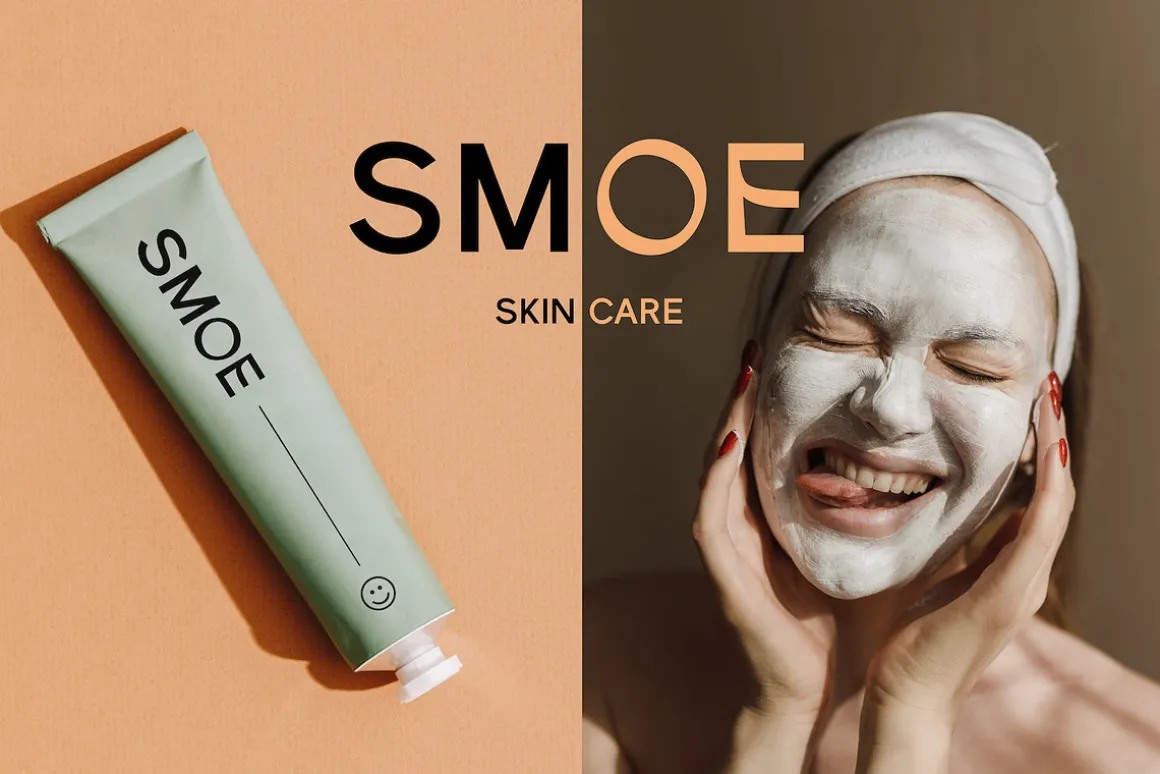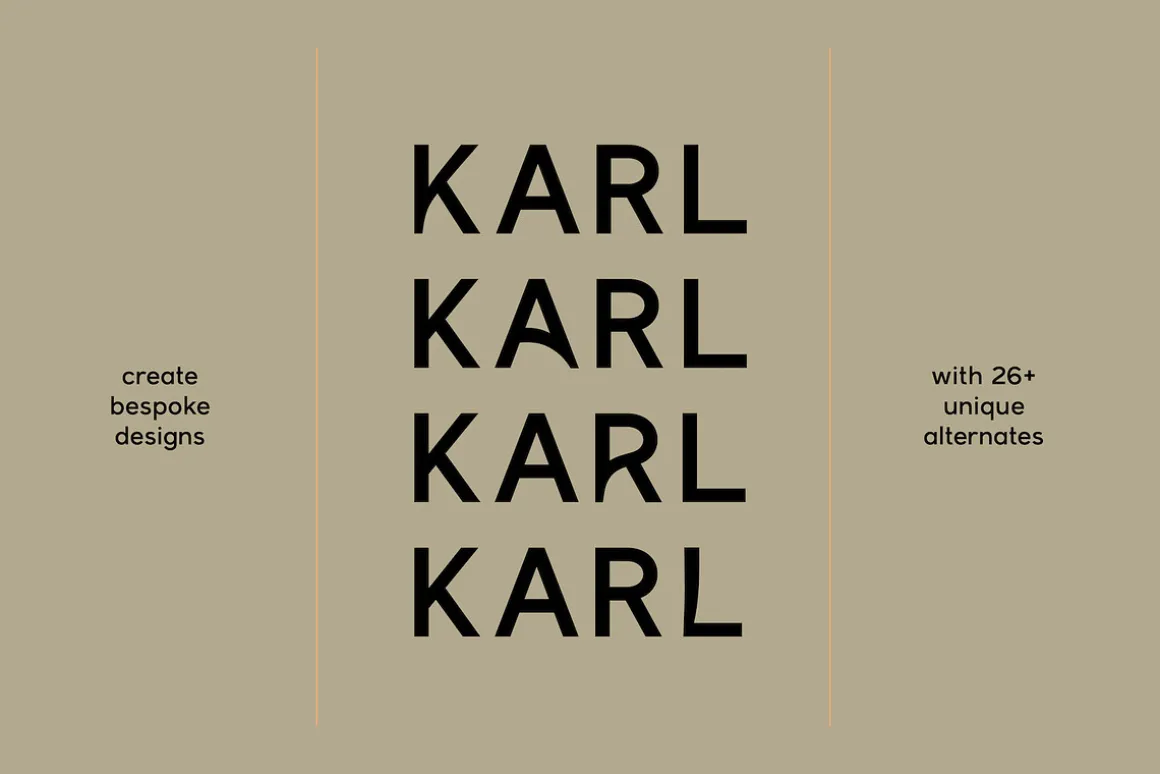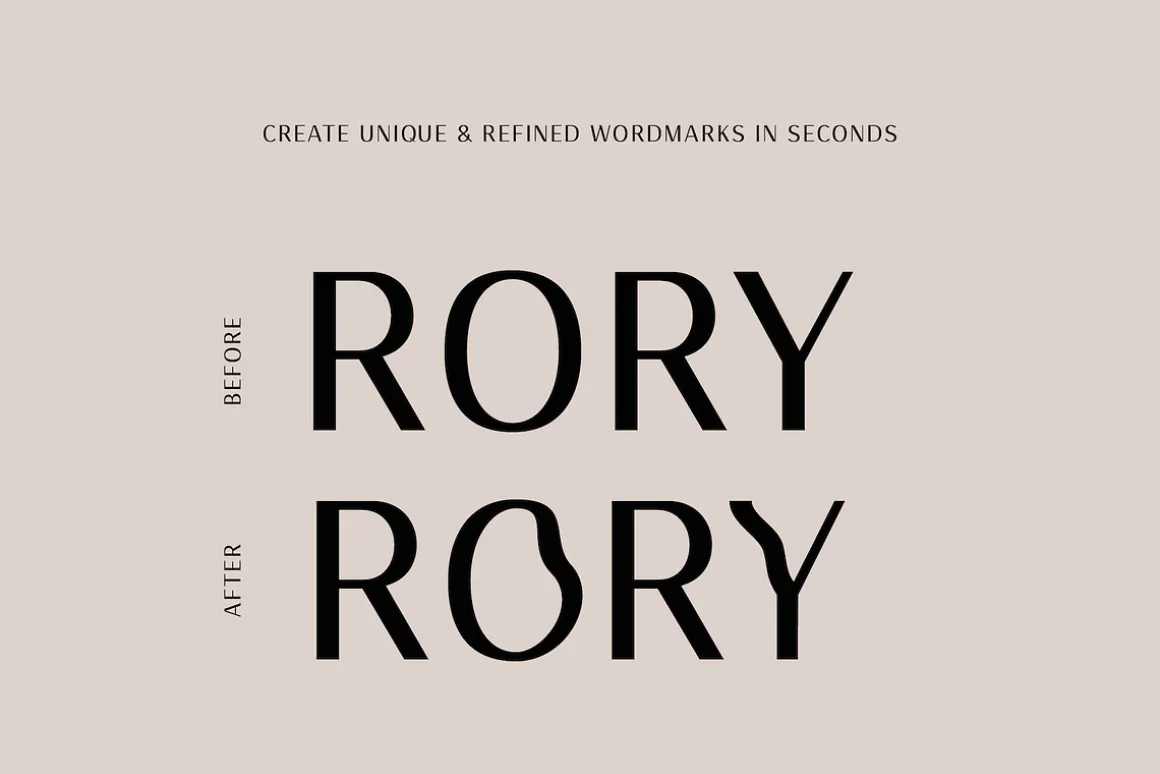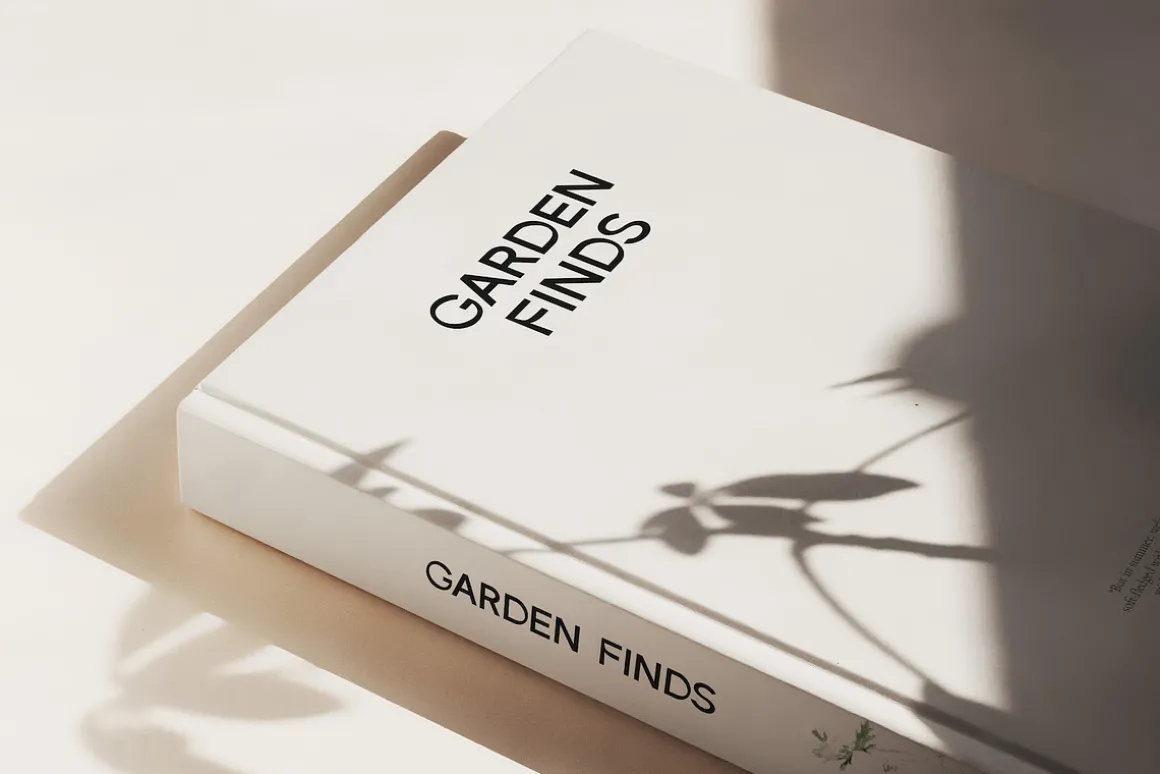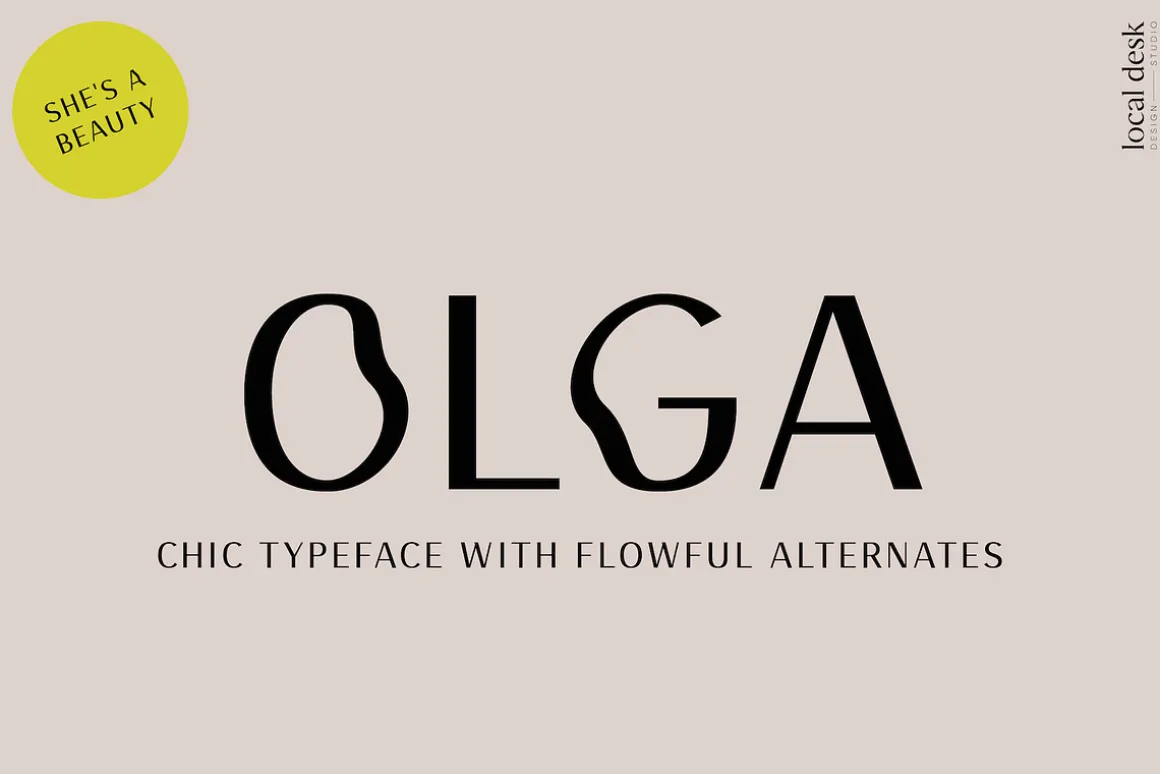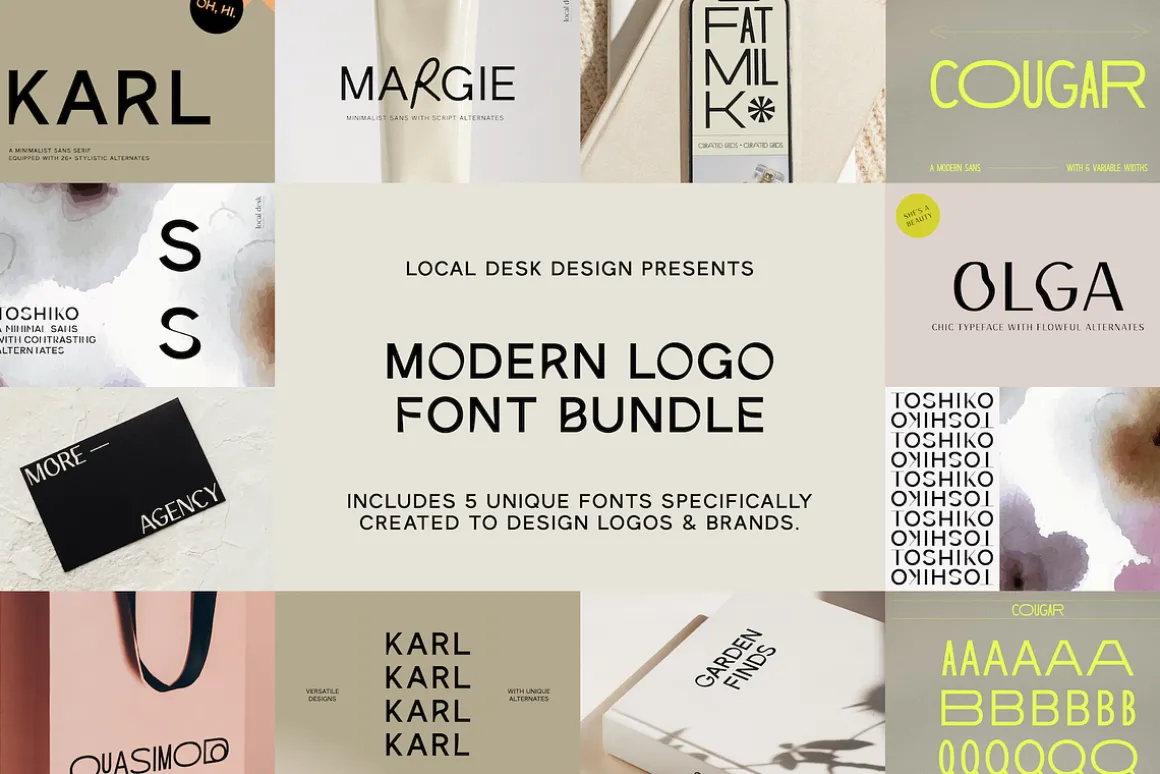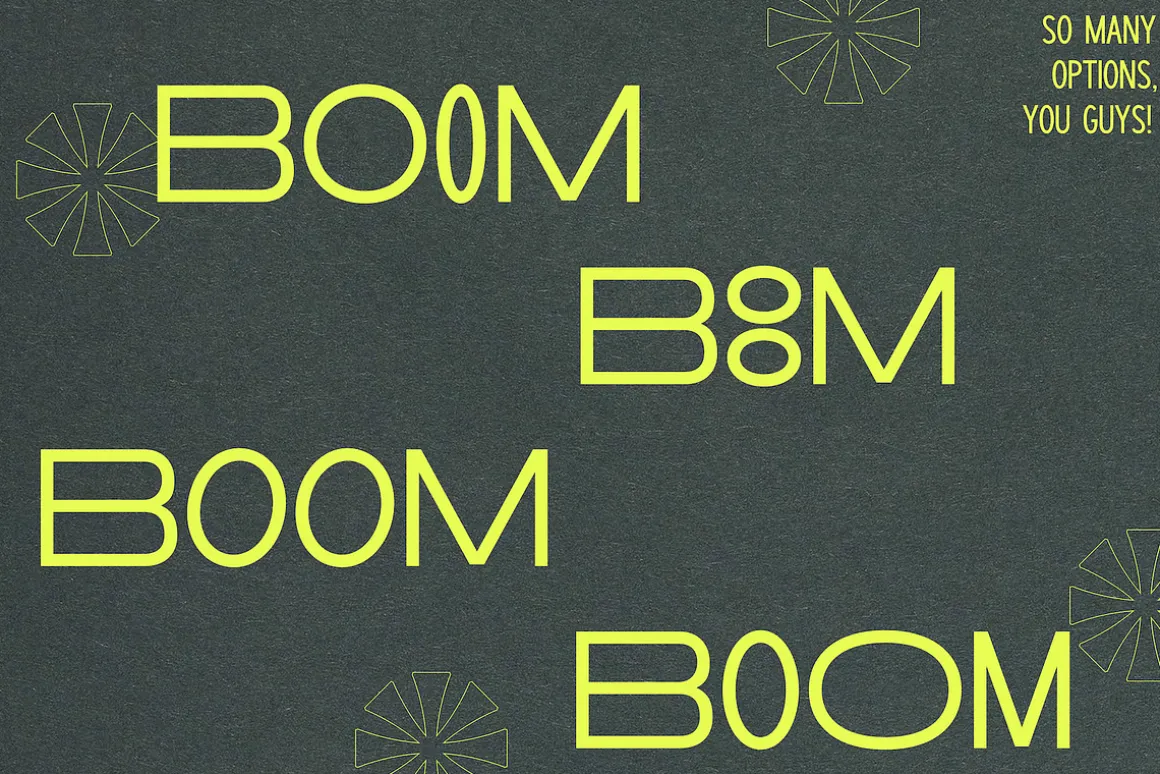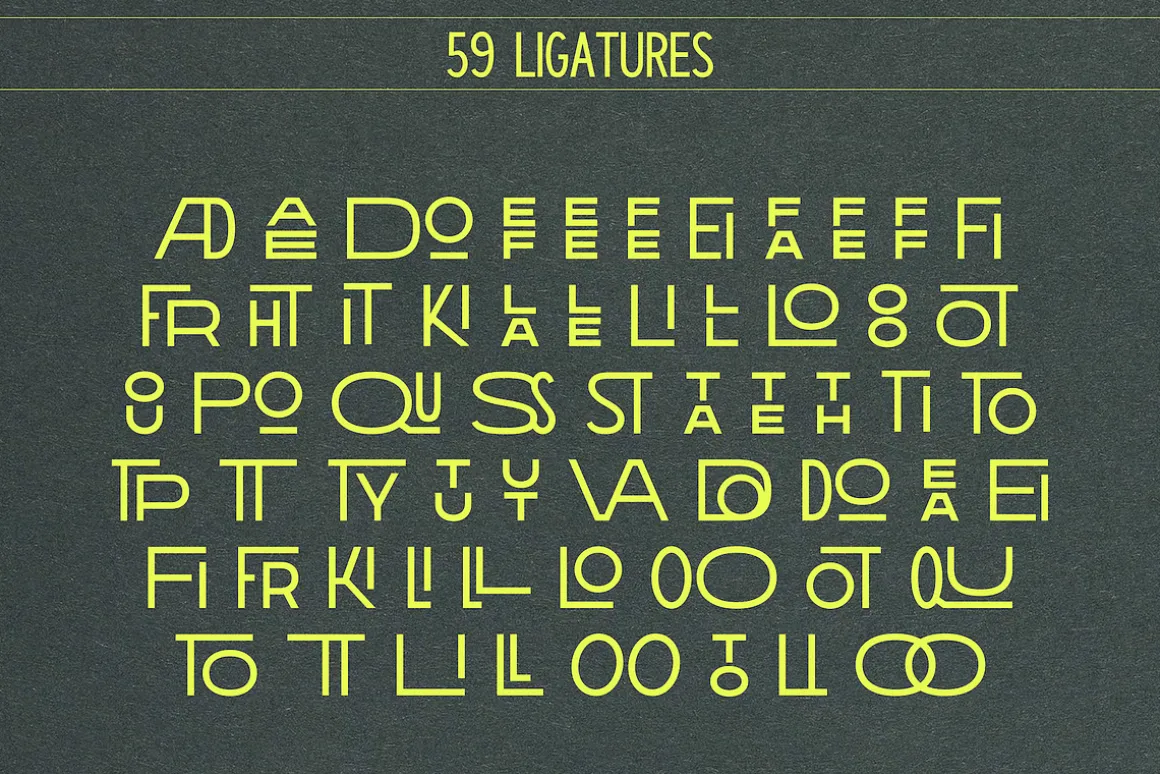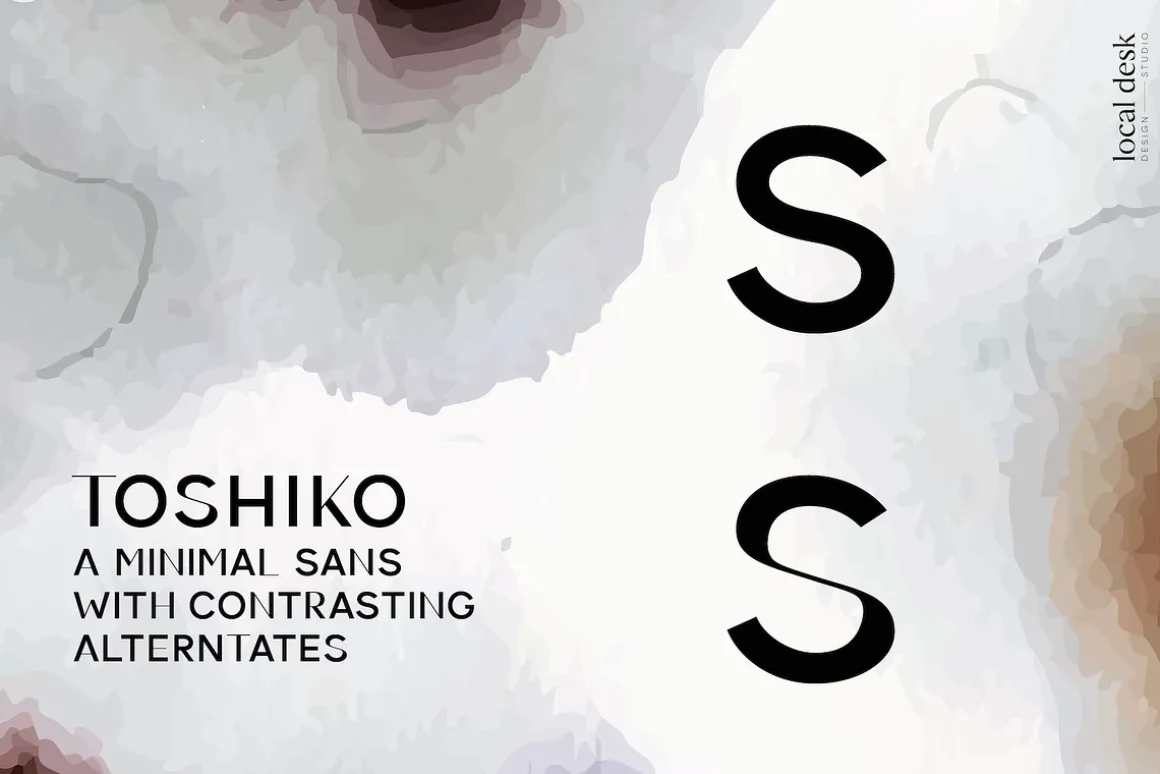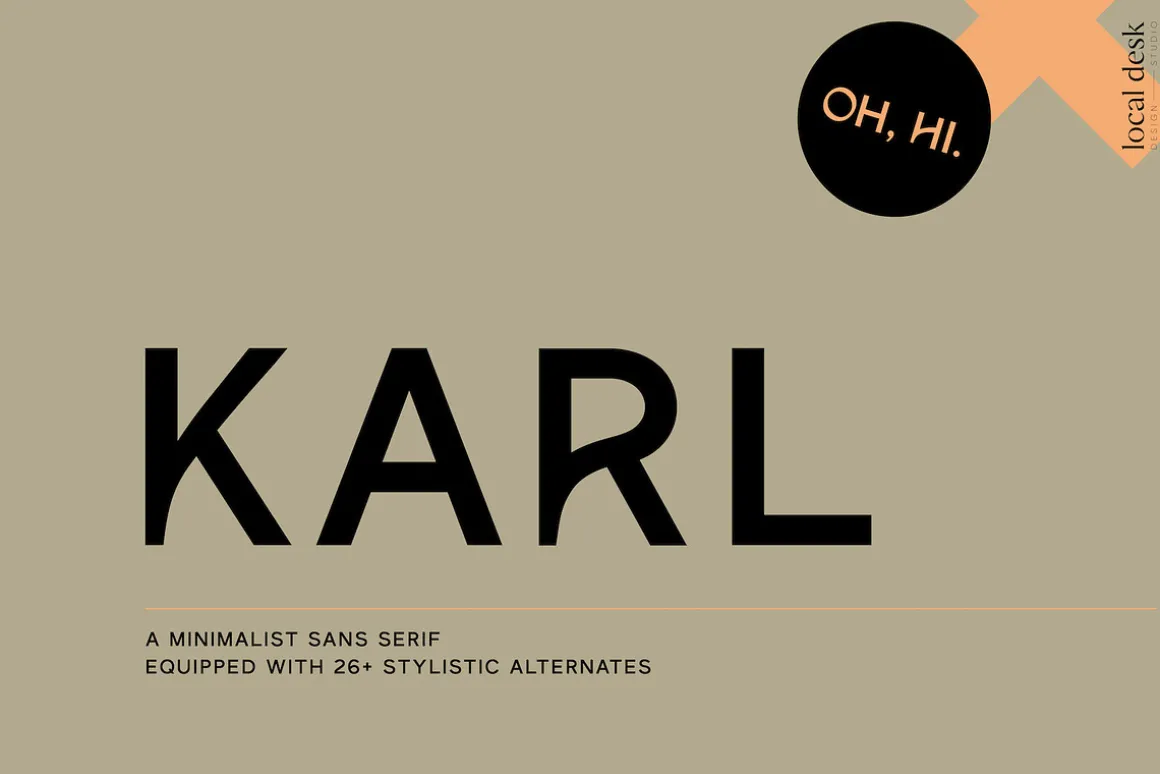
The Modern Logo Font Bundle
5 unique and modern typefaces have been carefully picked out and bundled.This bundle is tailored to make any logo design project an ease. Some of the best-selling fonts have been selected – all with modern, clean and stylish looks – and equipped with unique alternates and multiple stylistic features & ligatures.
Fonts Included:
Karl:
Olga Sans:
Cougar:
Toshiko:
Margie: